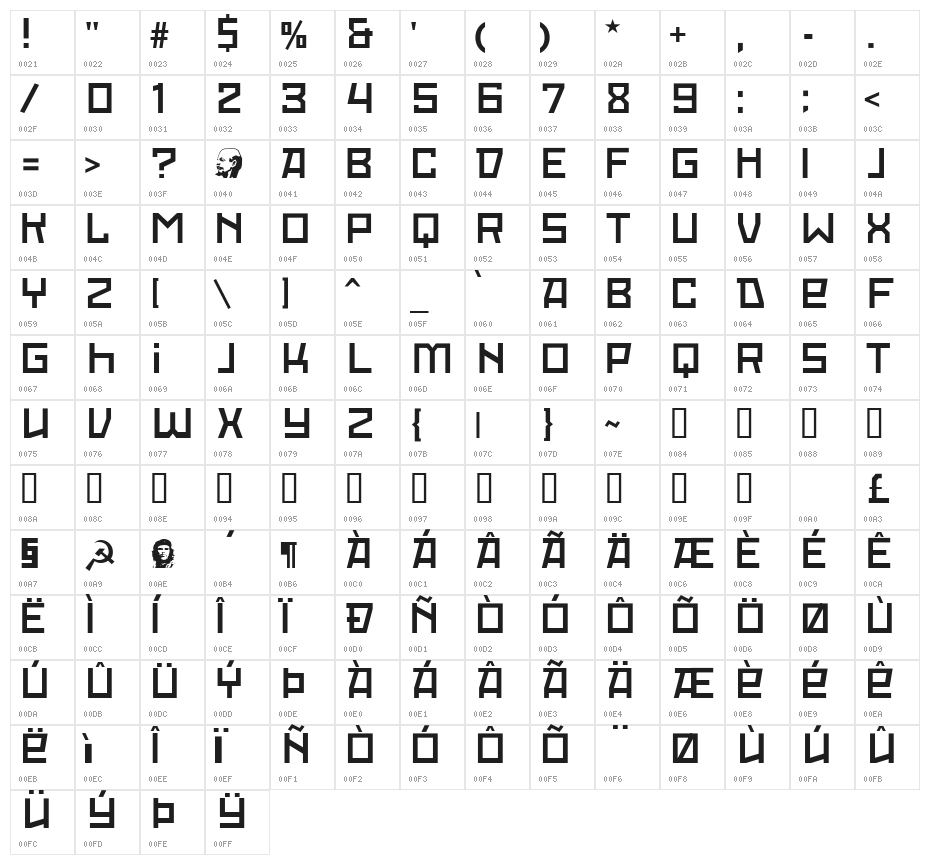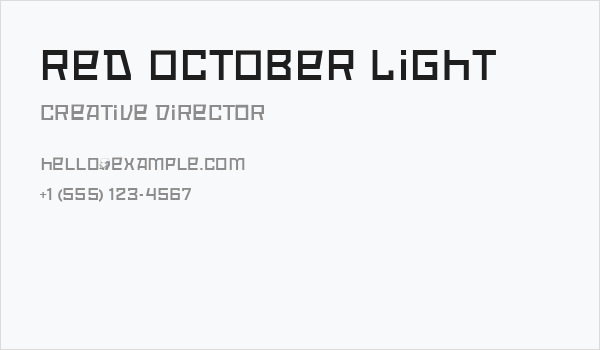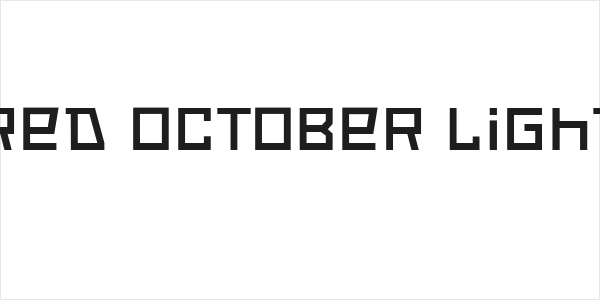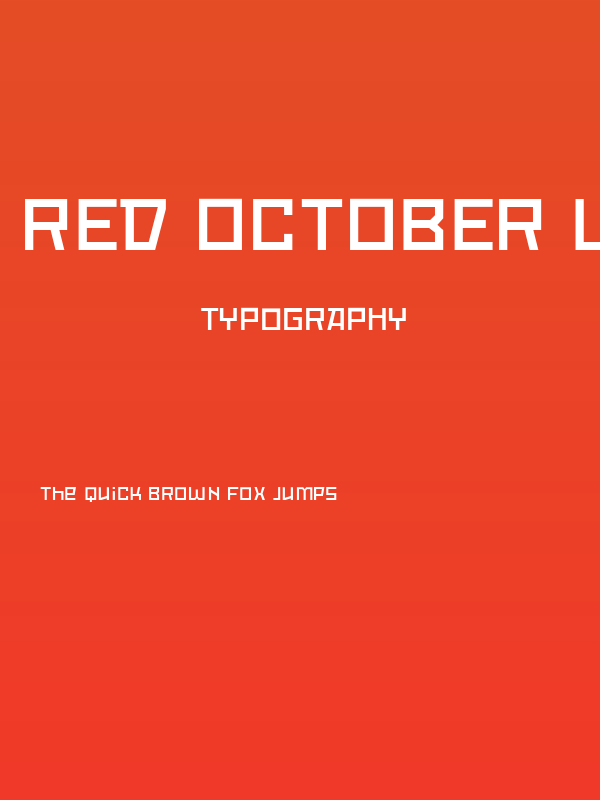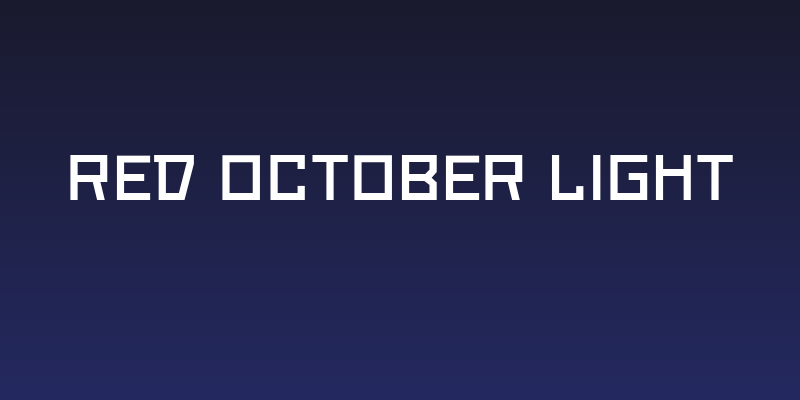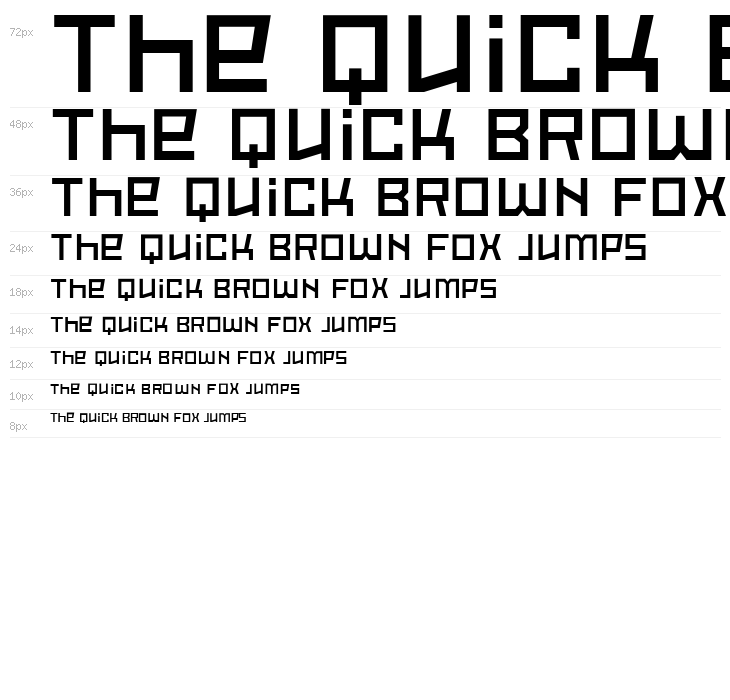
Red October Light Font
Red October Light Description
This font features a bold, geometric design with sharp angles and a futuristic aesthetic. The uppercase letters are distinct with a blocky appearance, while the lowercase letters maintain a similar style but with slightly softer edges. Numbers and special characters follow the same angular theme, providing a cohesive look across all glyphs. The font's structure is clean and modern, making it suitable for digital and print media that require a strong visual impact. Its unique style is reminiscent of sci-fi and tech-inspired designs, offering a contemporary feel.
| Proposed Projects | Ideal for tech branding, sci-fi posters, video game interfaces, and modern advertising campaigns. |